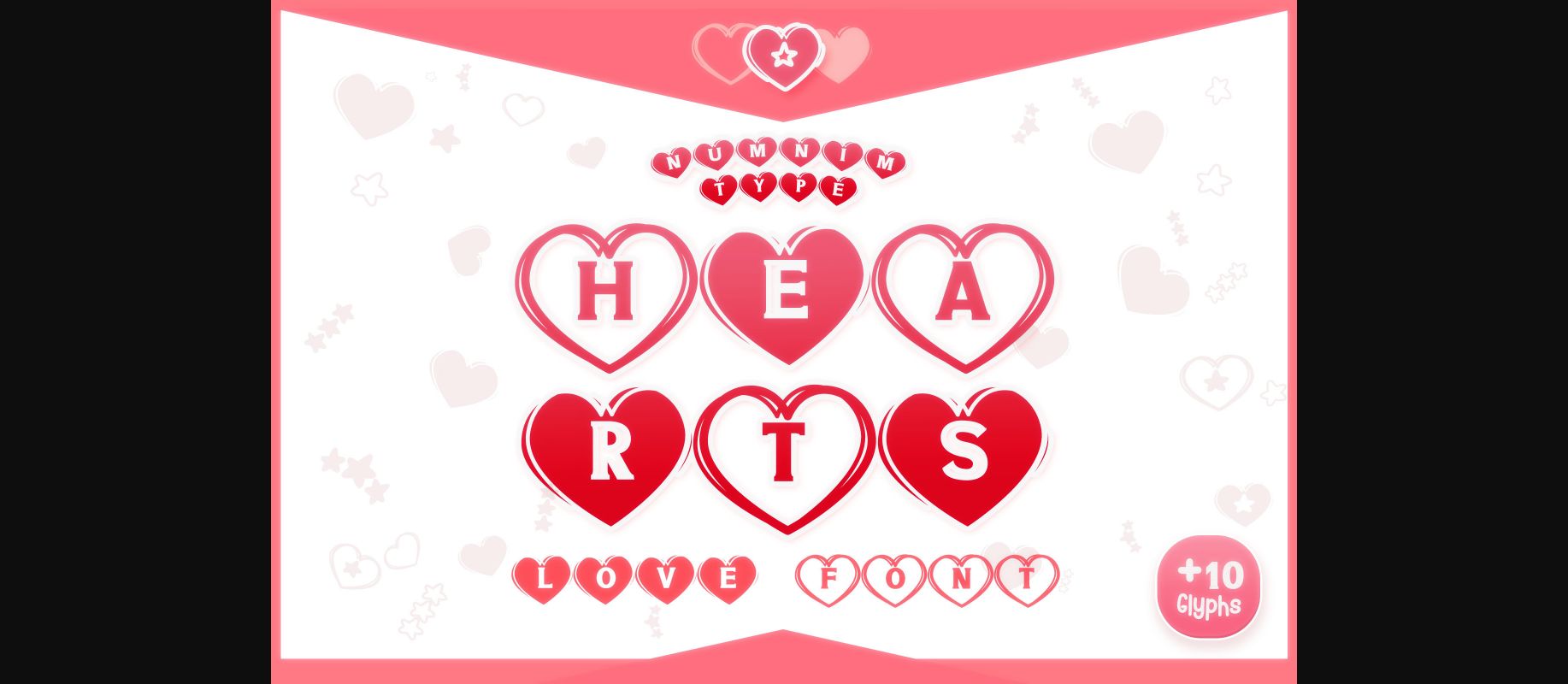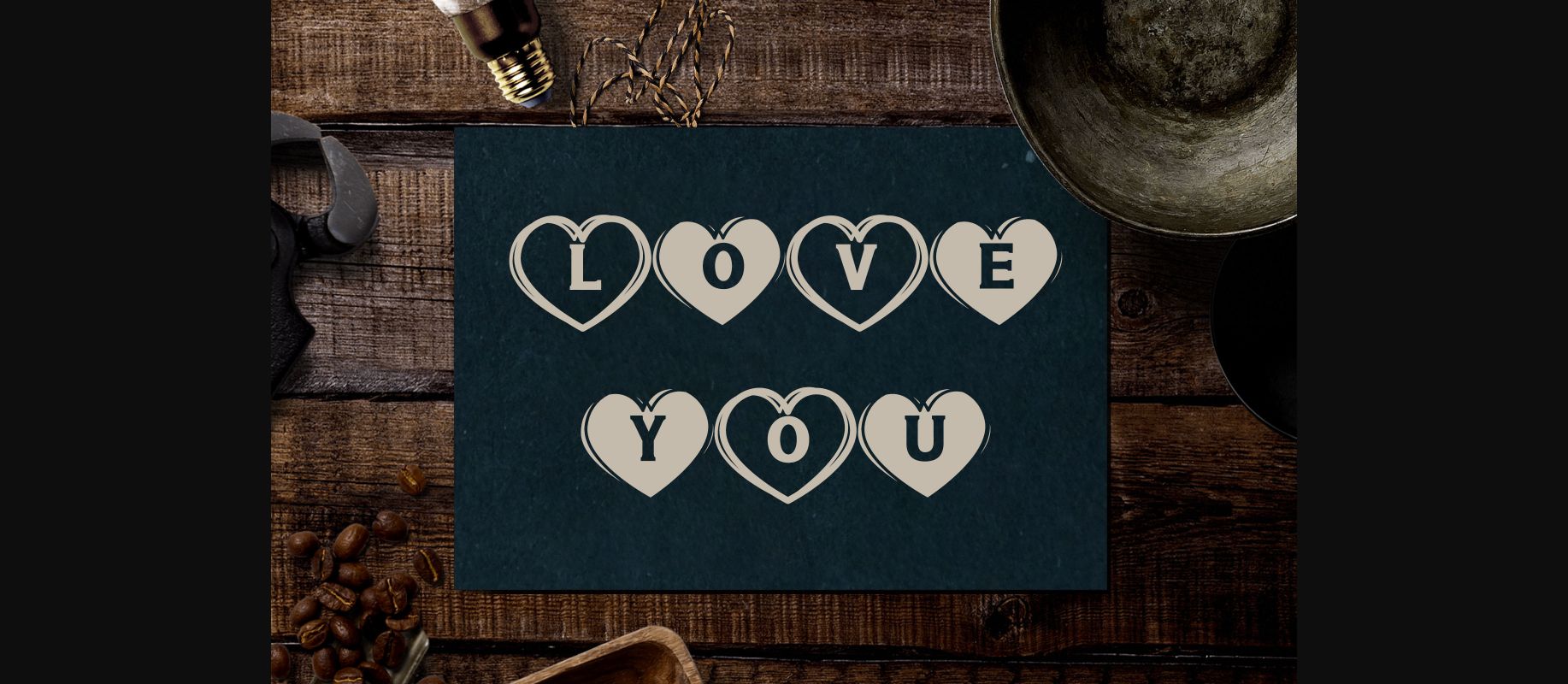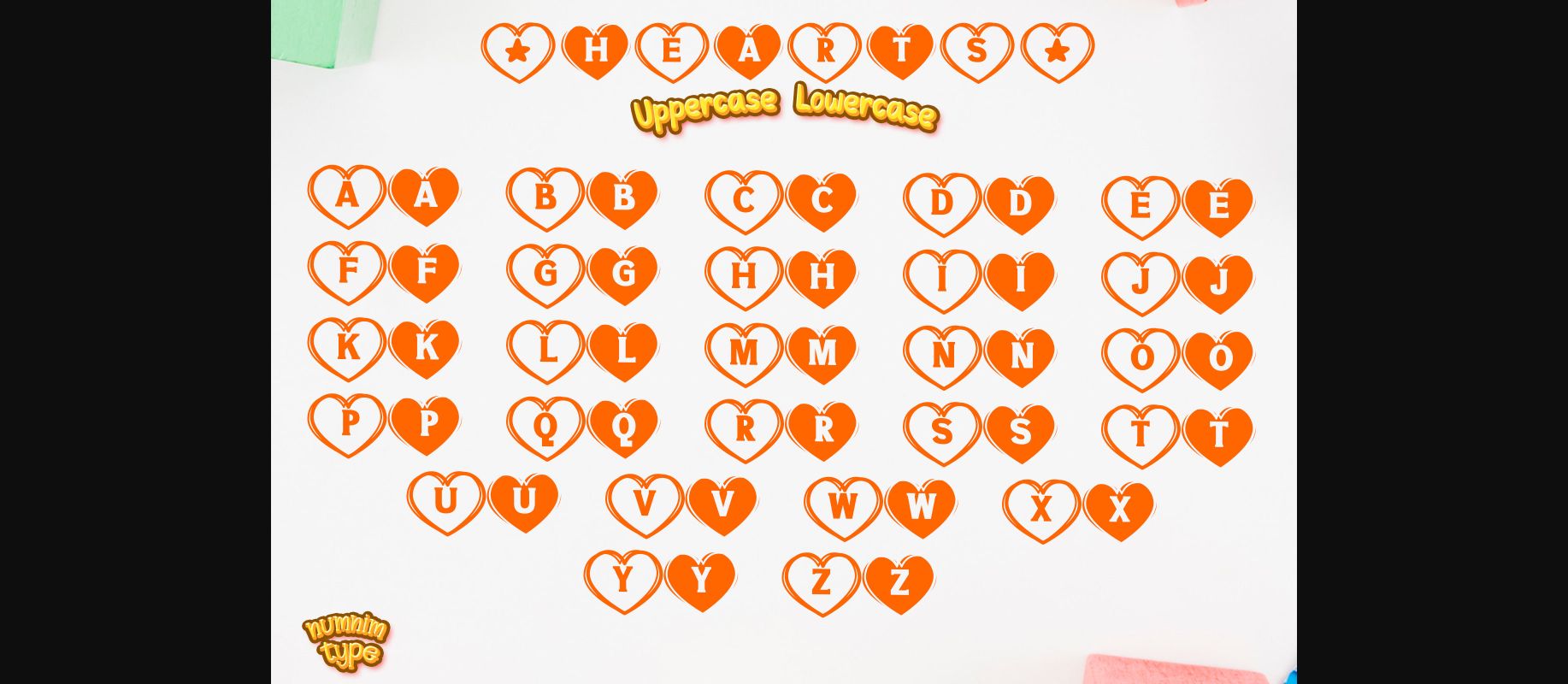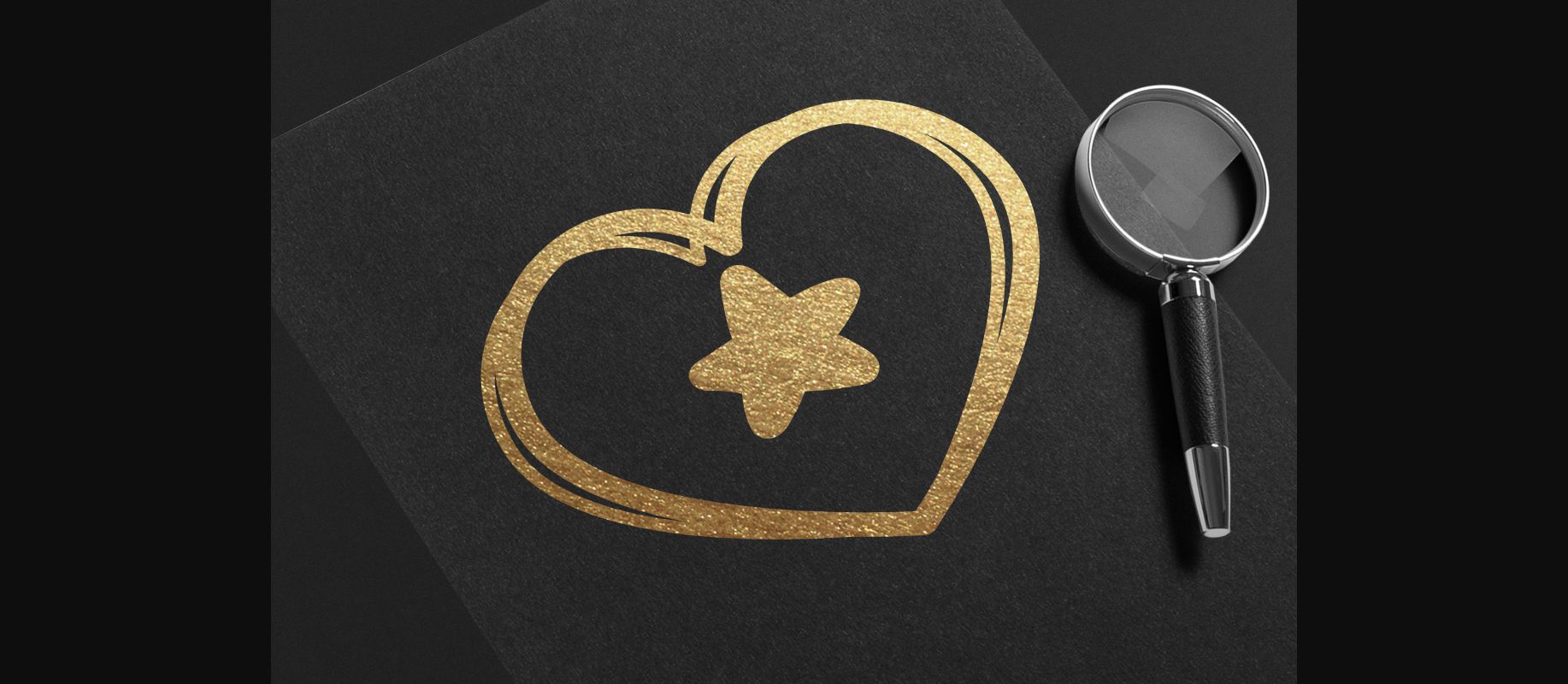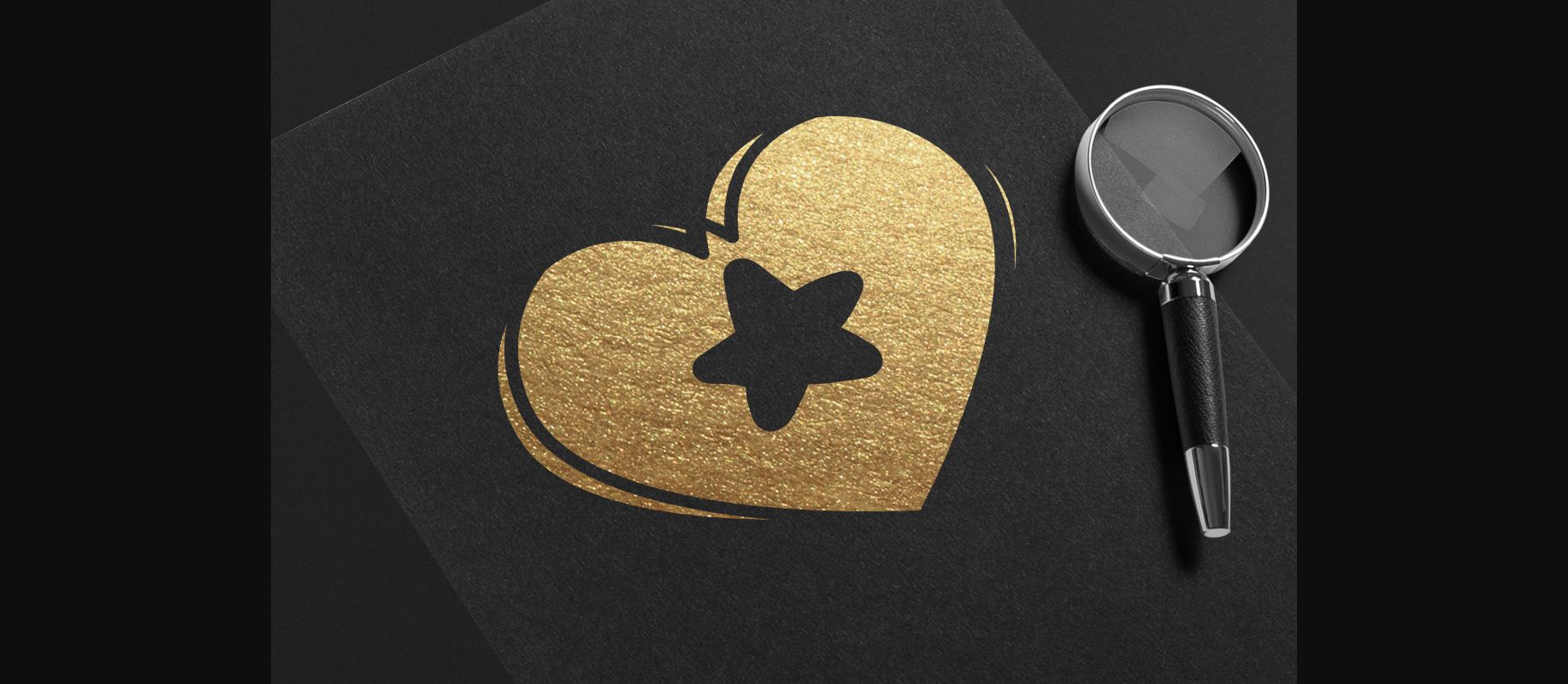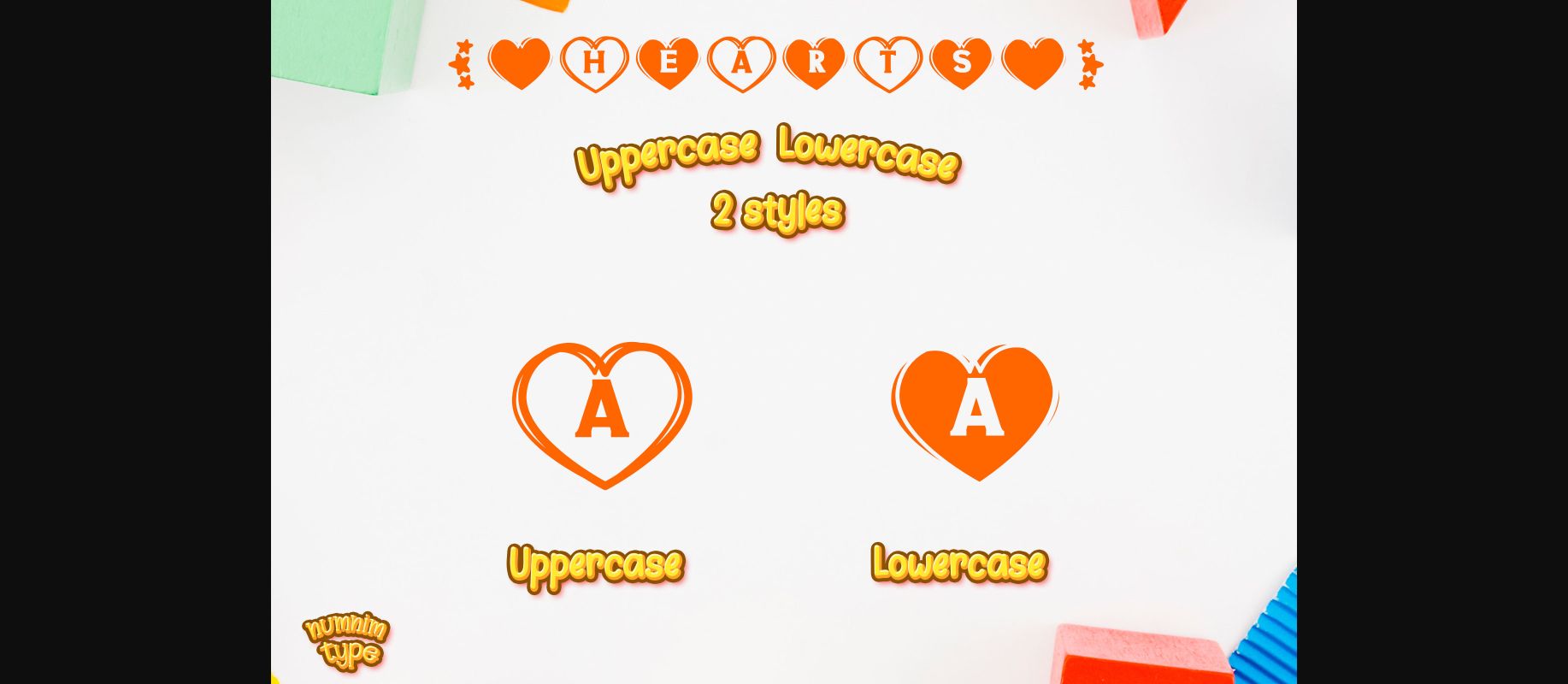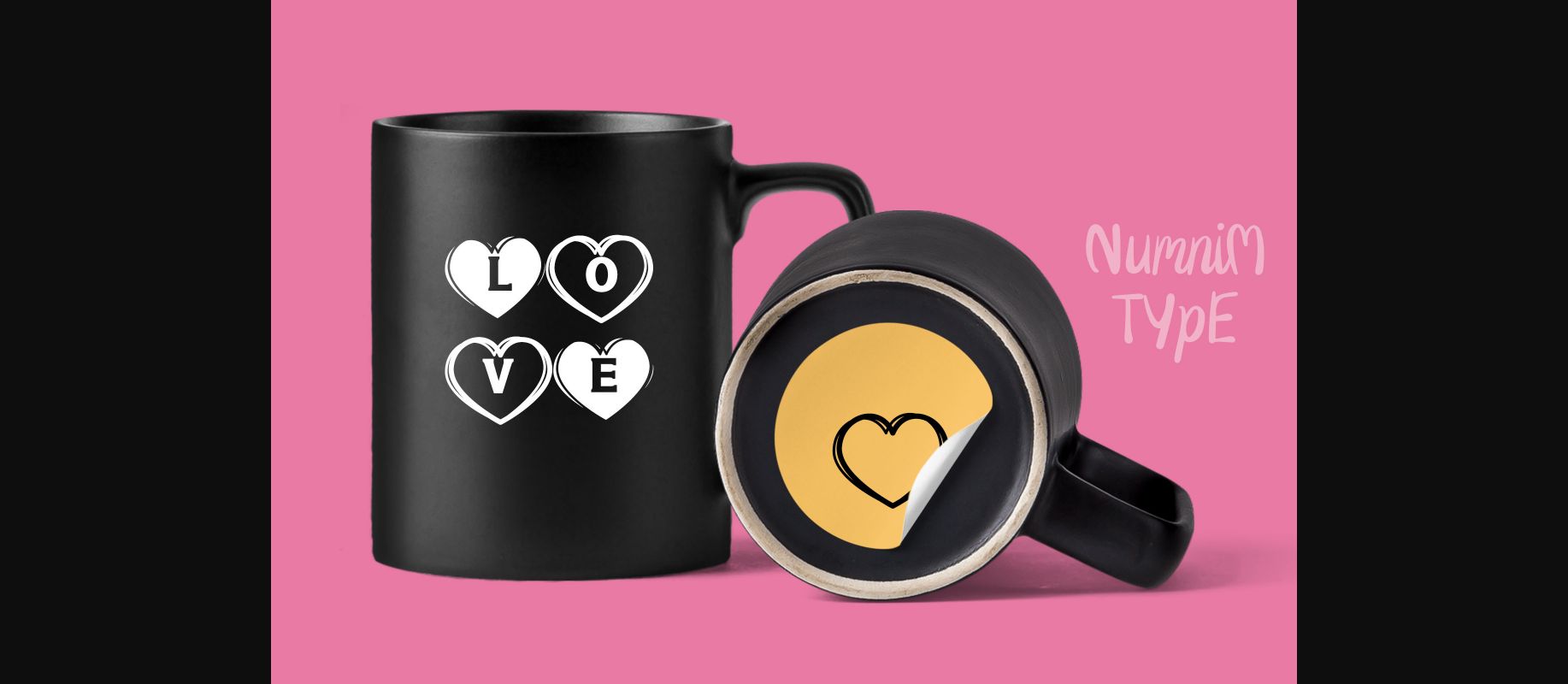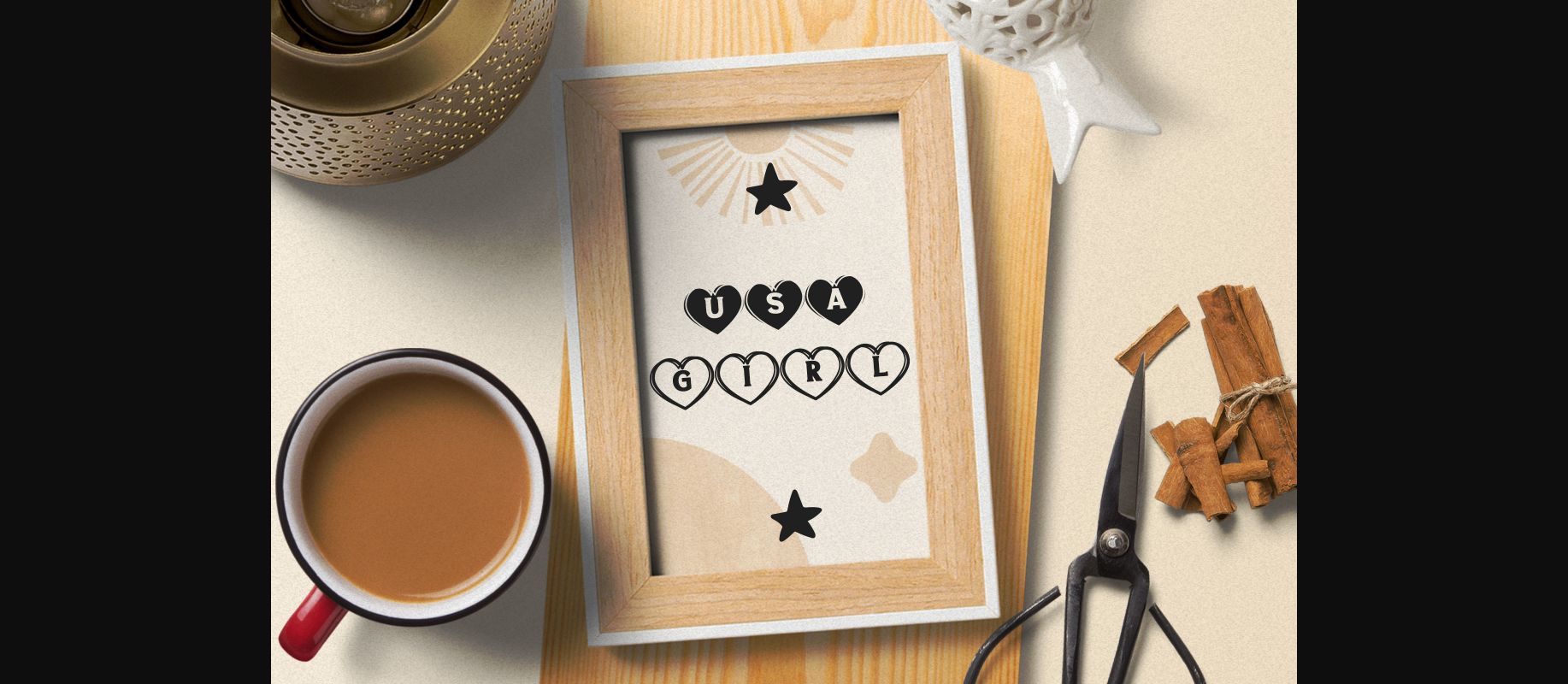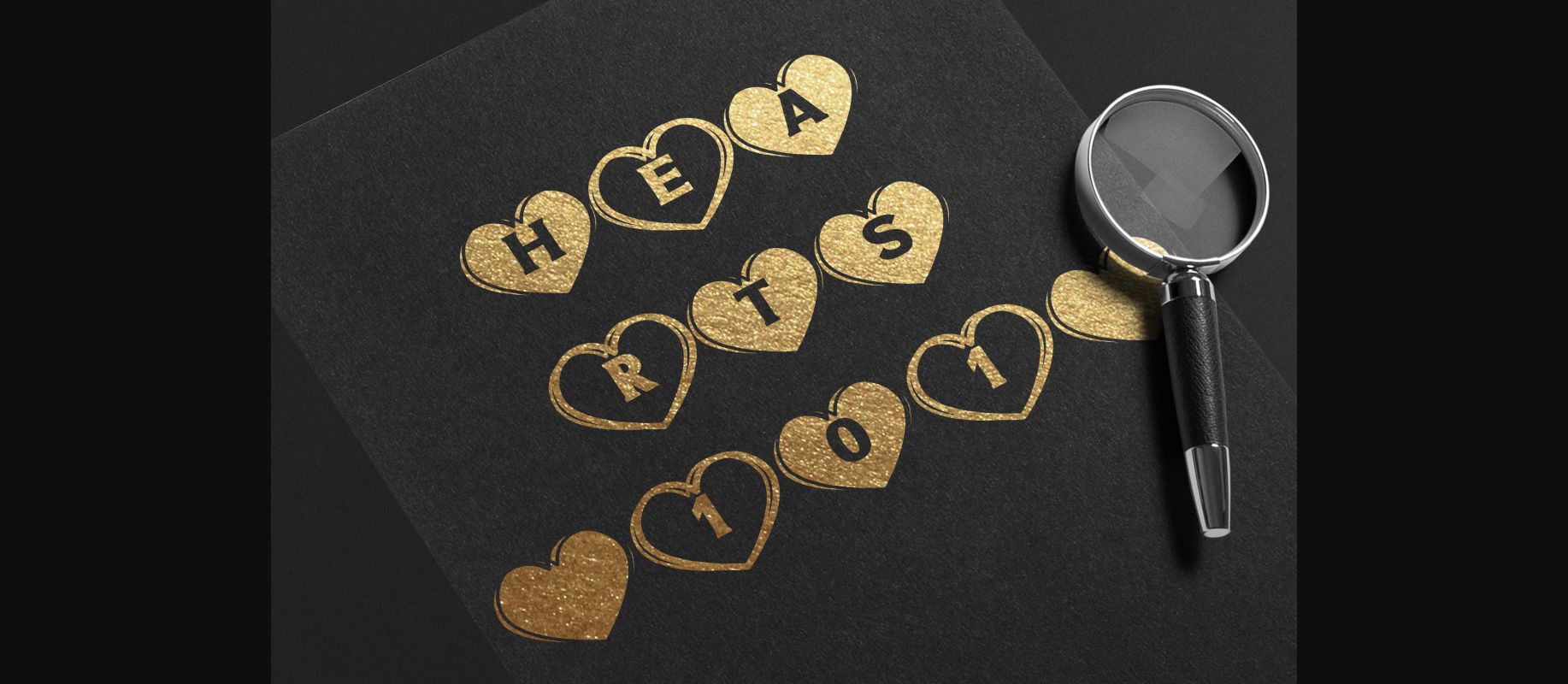
Hearts is a cool and uniquely designed decorative font, created particularly for the Valentine’s Day. Each character is fun and playful, perfect for adding a bold accent to your designs!